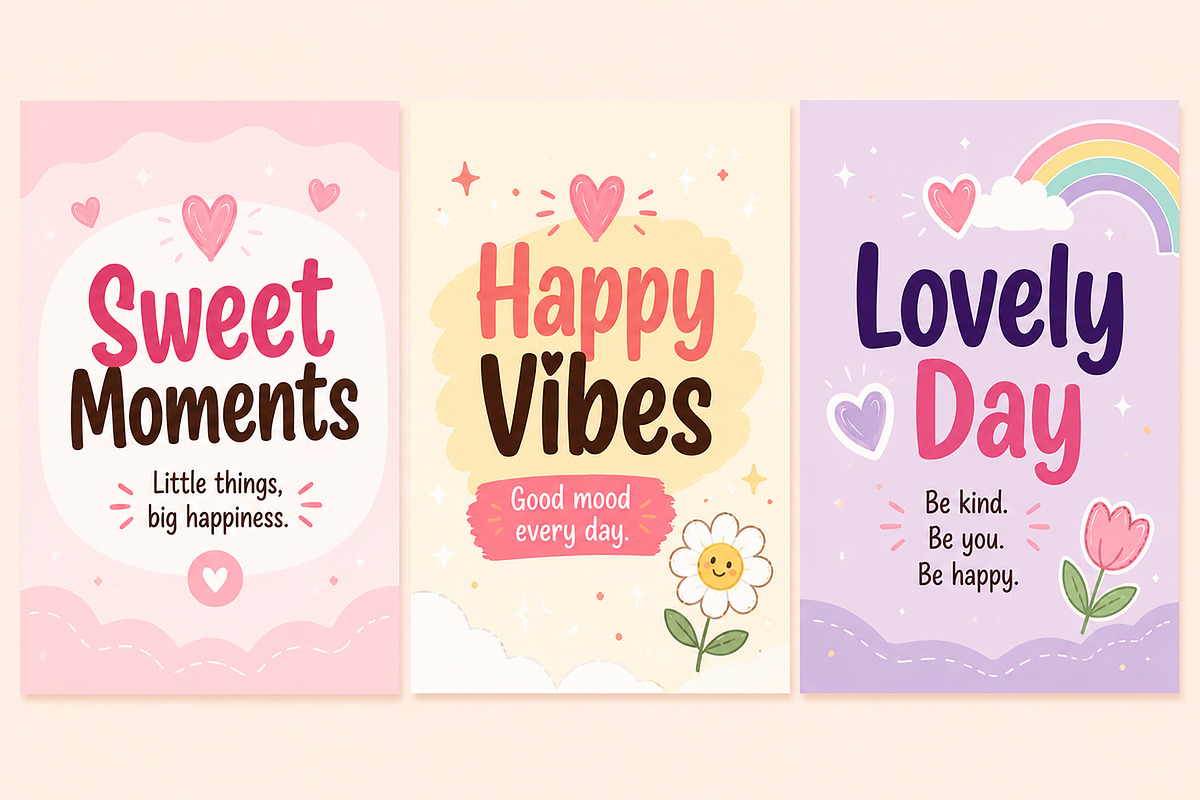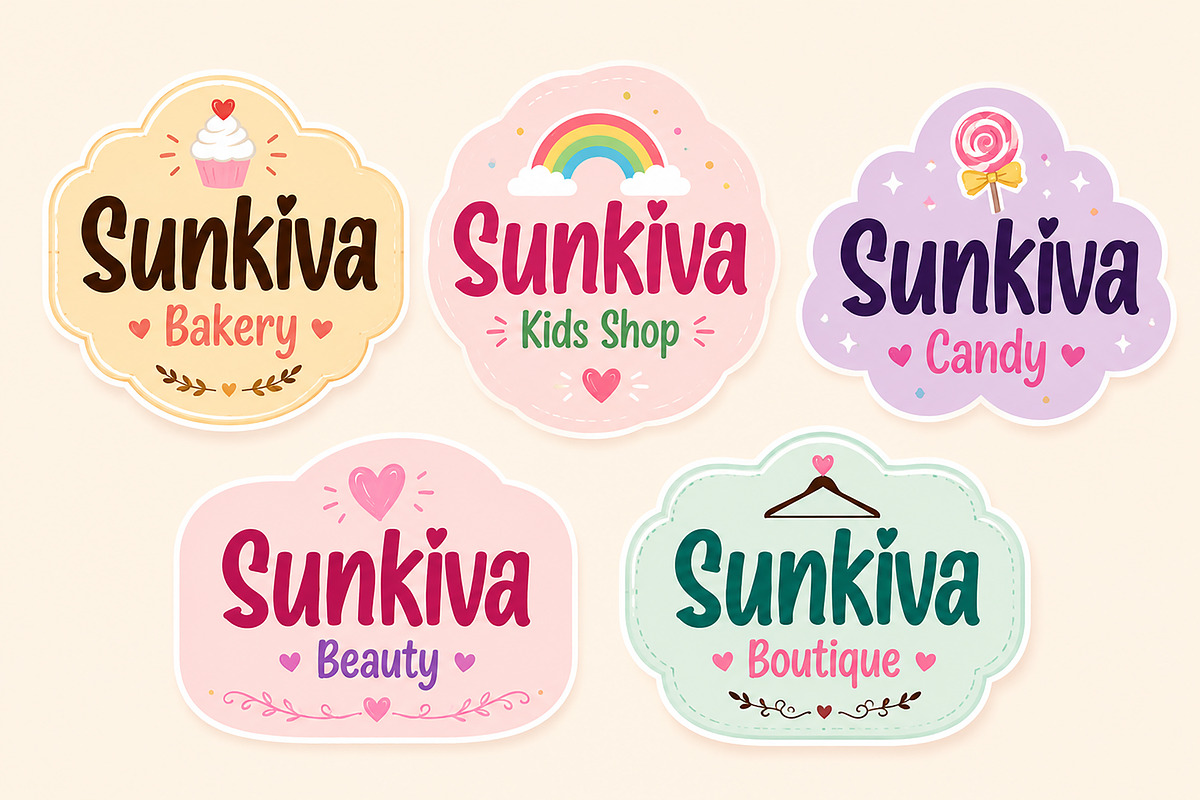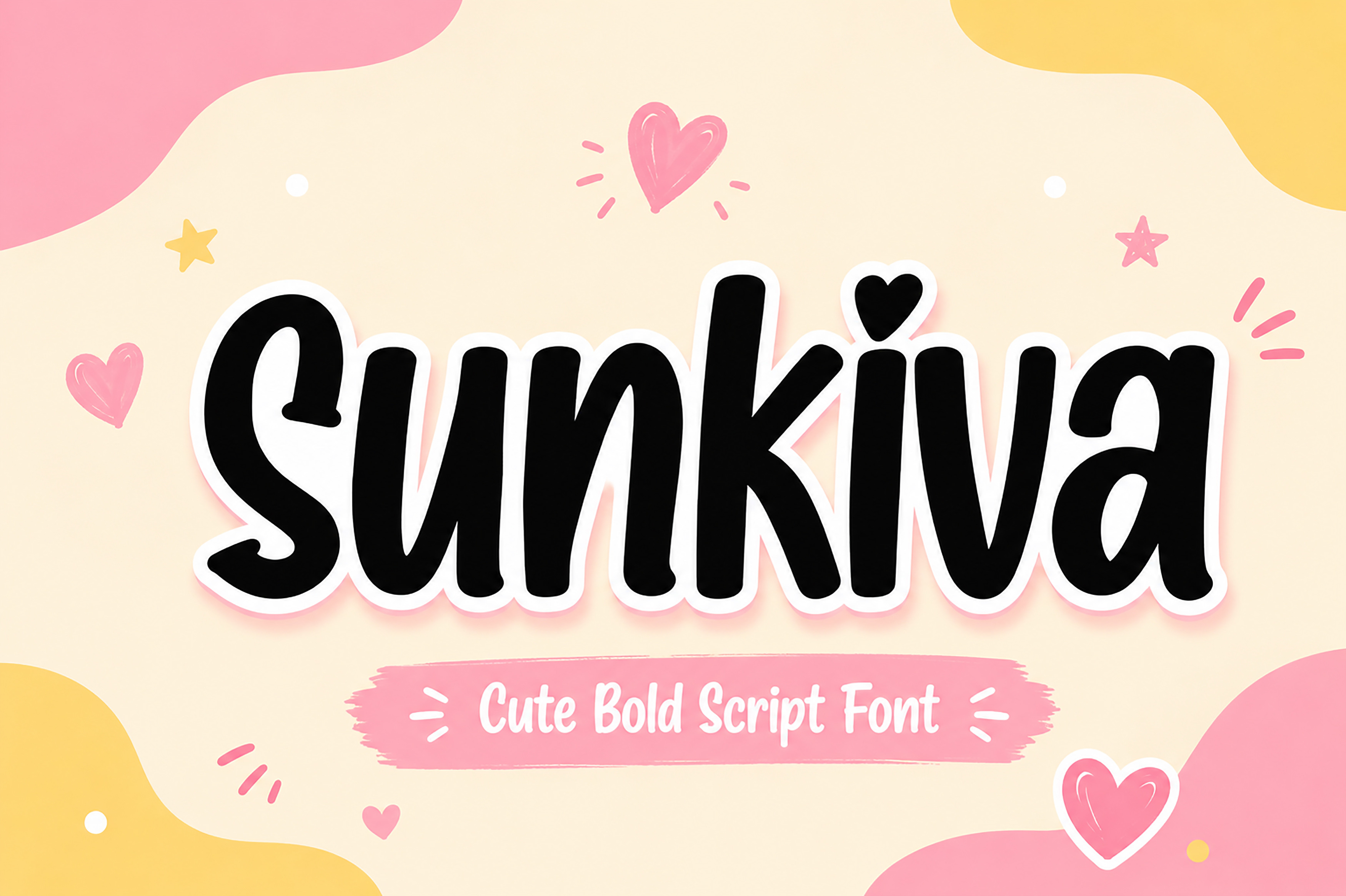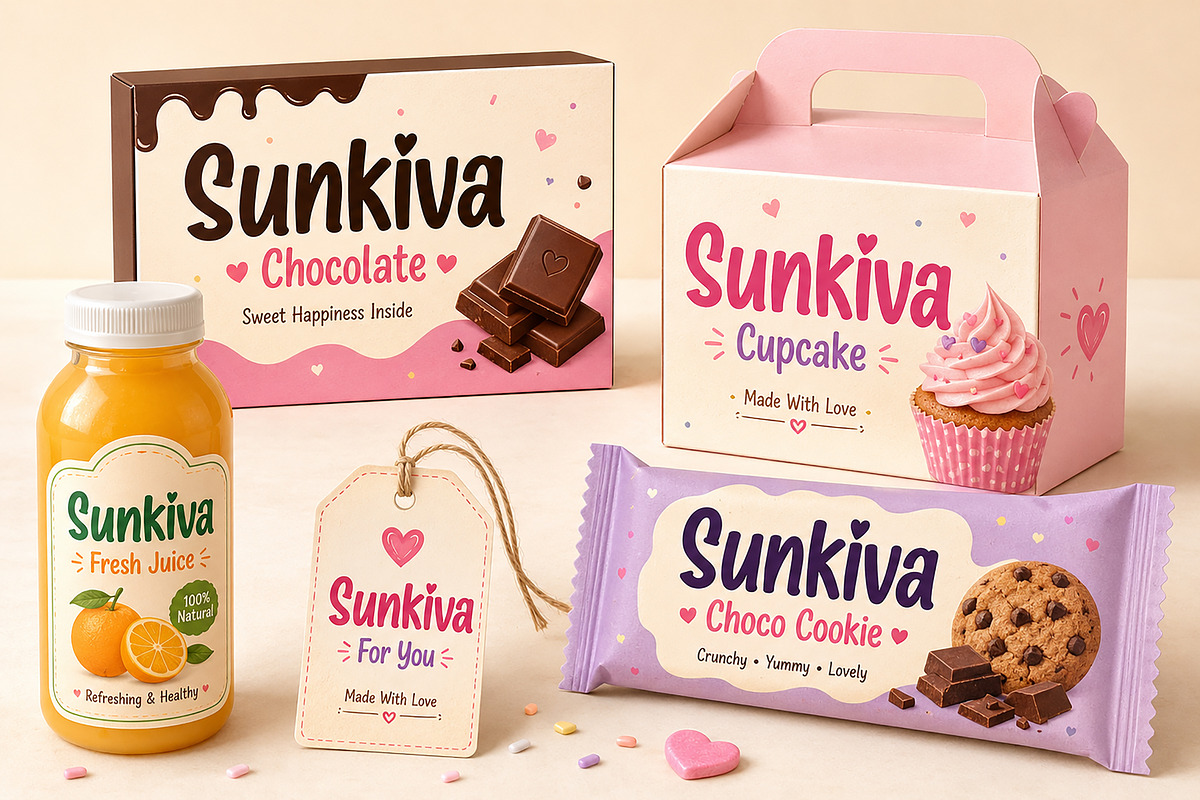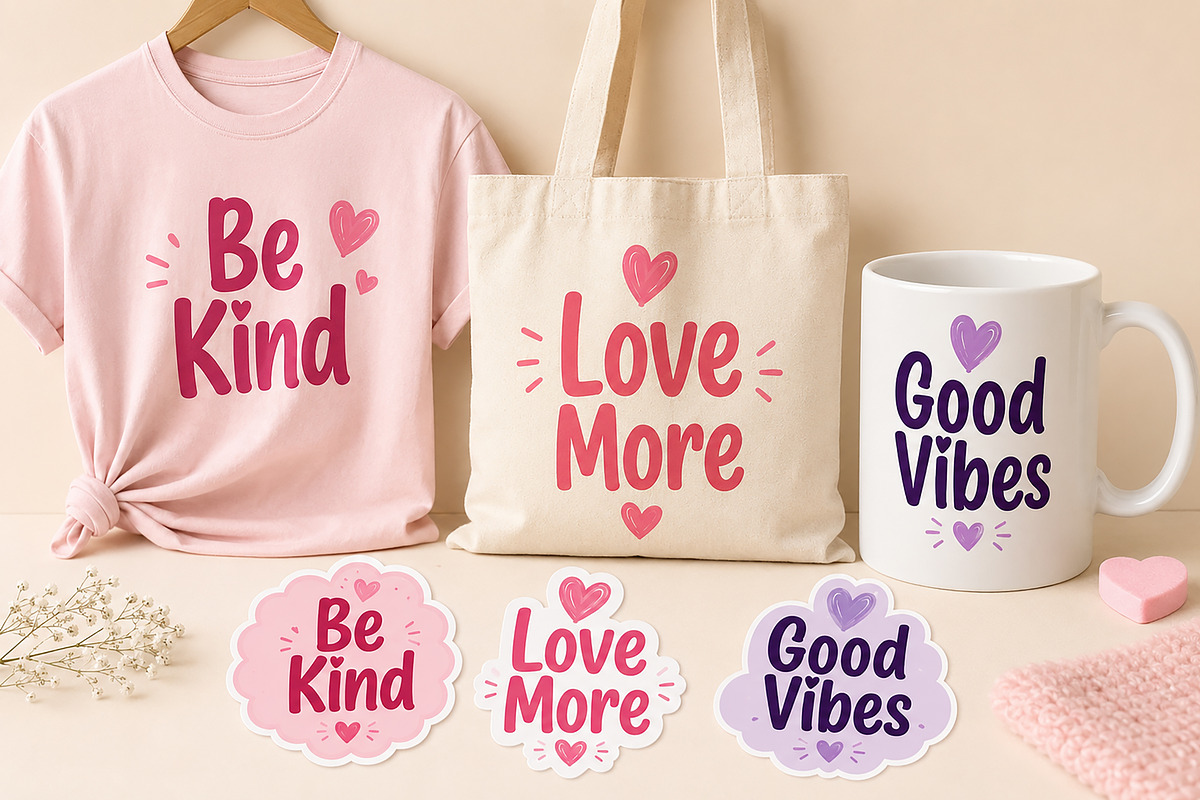
Sunkiva – Cute Bold Script Font
Sunkiva is a cute, bold, and playful script font designed to bring warmth and personality to your creative projects. With its smooth hand-lettered style and adorable heart accent, this font instantly creates a friendly, cheerful, and modern look.
Perfect for branding, packaging, social media, and merchandise, Sunkiva is crafted to make your designs feel sweet, eye-catching, and memorable. Whether you're creating a bakery logo, children's products, beauty branding, greeting cards, or printable designs, Sunkiva adds a charming handmade touch to every project.
Its bold strokes ensure excellent readability while maintaining a fun and stylish appearance, making it suitable for both digital and print designs.
Logos & Branding
Bakery & Cafe Designs
Beauty & Cosmetic Packaging
Chocolate & Candy Packaging
Kids Brand Identity
Gift Tags & Labels
Greeting Cards
T-Shirts
Tote Bags
Mugs
Stickers
Social Media Posts
Instagram Quotes
Facebook Graphics
Posters
Invitations
Scrapbooking
Cricut & Silhouette Projects
Sublimation Designs
Printable Products
Creative Market Templates
Cute Handwritten Script Style
Bold & Easy to Read
Smooth Curves
Playful Character Design
Heart Accent Detail
Perfect for Branding
Works for Print & Digital Use